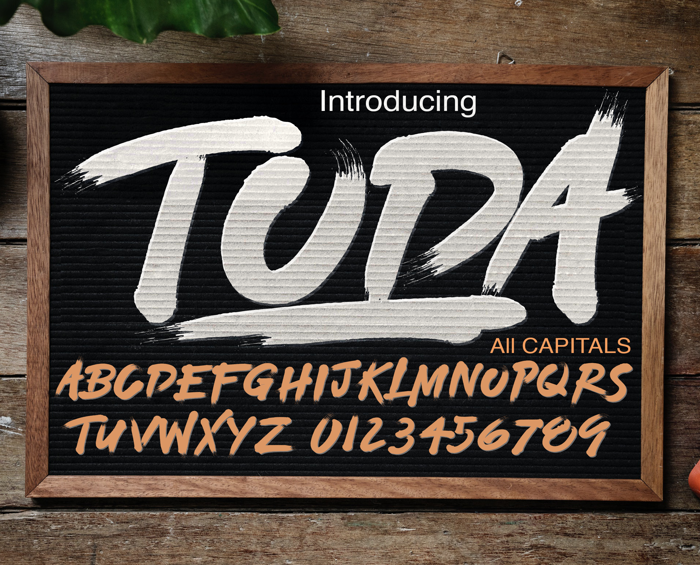
TODA DEMO Font
TODA
- Bold brush inspired font perfect on your school projects, covers, etc.
- Lifestyle modern clean font for branding, website, mobile app etc.